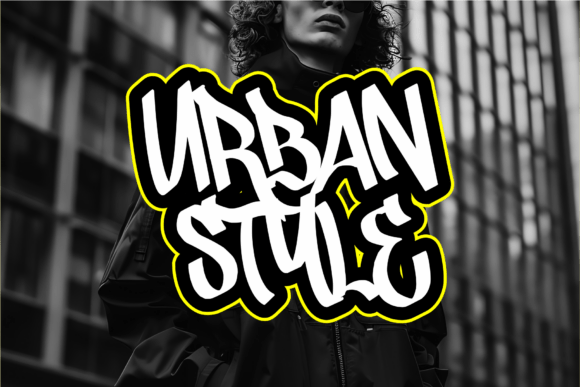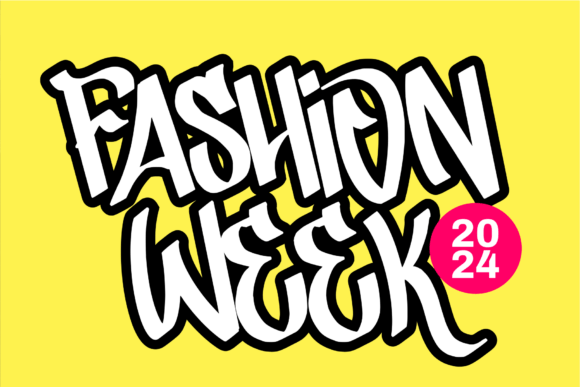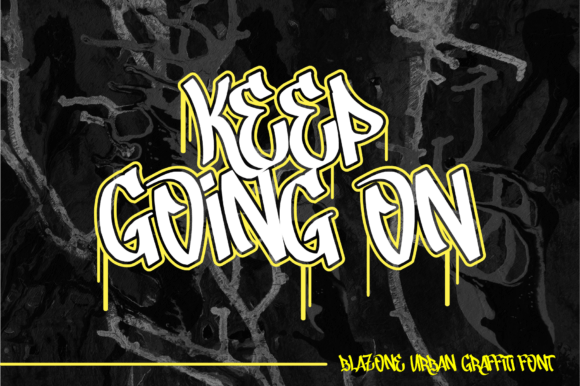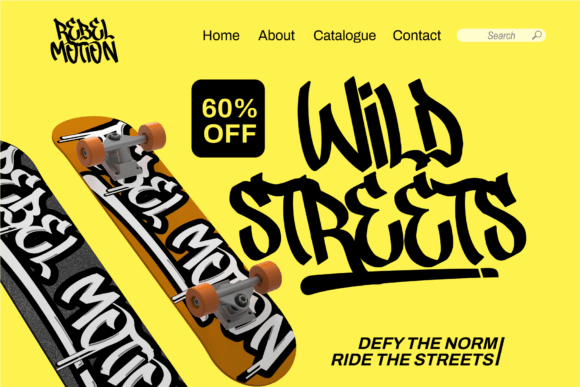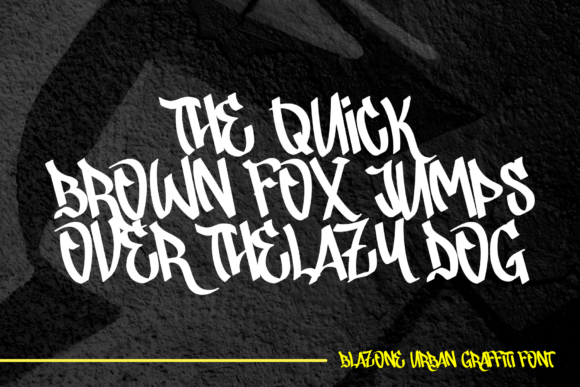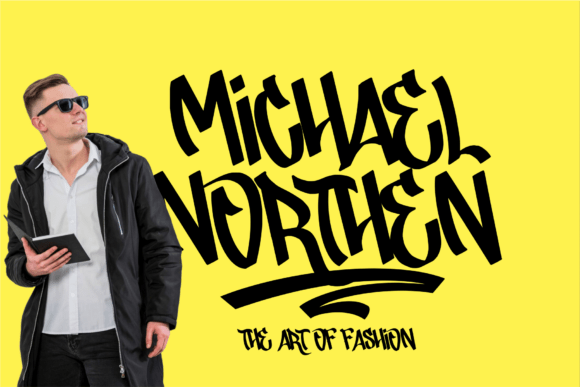
Unleash Your Creativity with Blazone Font: The Ultimate Urban Graffiti Experience
In the world of typography, fonts play a crucial role in shaping the visual identity of a brand, product, or artwork. For designers and crafters looking to add a touch of modern urban culture to their projects, Blazone Font is an exceptional choice. This dynamic graffiti-style font is designed to capture the essence of the city streets, bringing a bold, expressive, and rebellious vibe to any design.
The Essence of Blazone Font
Blazone Font is more than just a typeface; it’s an experience. Its bold, expressive strokes and street-inspired design make it the perfect choice for logos, branding, posters, and more. The font’s raw energy and creative flair allow it to stand out in any project, adding a distinctive, edgy vibe that’s sure to captivate audiences. Whether you’re a designer looking to create a bold brand identity or an artist seeking to express yourself through typography, Blazone Font is the ultimate tool for unleashing your creativity.
Key Features of Blazone Font
So, what makes Blazone Font so special? Here are some of its key features:
- Ligature Features: Blazone Font comes equipped with ligature features that allow you to create unique and artistic text arrangements. Ligatures are special characters that combine two or more letters into a single glyph, adding a touch of sophistication and elegance to your designs.
- Underline Swashes: Add a decorative touch to your text with underline swashes that give your designs a dynamic, urban feel. These swashes can be used to create a sense of movement and energy, drawing the viewer’s eye through the text.
- Multilingual Support: Blazone Font supports multiple languages, making it a versatile choice for designers working on international projects. Whether you’re creating a brand identity for a global company or designing a poster for a local event, Blazone Font has got you covered.
Endless Customization and Artistic Expression
One of the most exciting aspects of Blazone Font is its versatility. With a range of customization options at your disposal, you can experiment with different styles, textures, and effects to create a truly unique look. The font’s ligature features, underline swashes, and multilingual support allow you to push the boundaries of typography, exploring new and innovative ways to express yourself.
Blazone Font is an incredibly versatile typeface that can be used for a wide range of projects, including:
- Logos and Branding: Create a bold, eye-catching logo that captures the essence of your brand. Blazone Font’s raw energy and creative flair make it perfect for businesses looking to make a statement.
- Posters and Flyers: Add a touch of urban grit to your posters and flyers with Blazone Font’s dynamic, graffiti-style design.
- Social Media Graphics: Stand out on social media with bold, expressive text that demands attention. Blazone Font is perfect for creating engaging social media graphics that showcase your brand’s personality.
In conclusion, Blazone Font is a game-changer for designers and crafters looking to add a touch of modern urban culture to their projects. Its bold, expressive strokes, street-inspired design, and versatile features make it the perfect choice for logos, branding, posters, and more. With Blazone Font, you can unleash your creativity, experiment with new typography styles, and bring your designs to life with a rebellious and contemporary spirit.